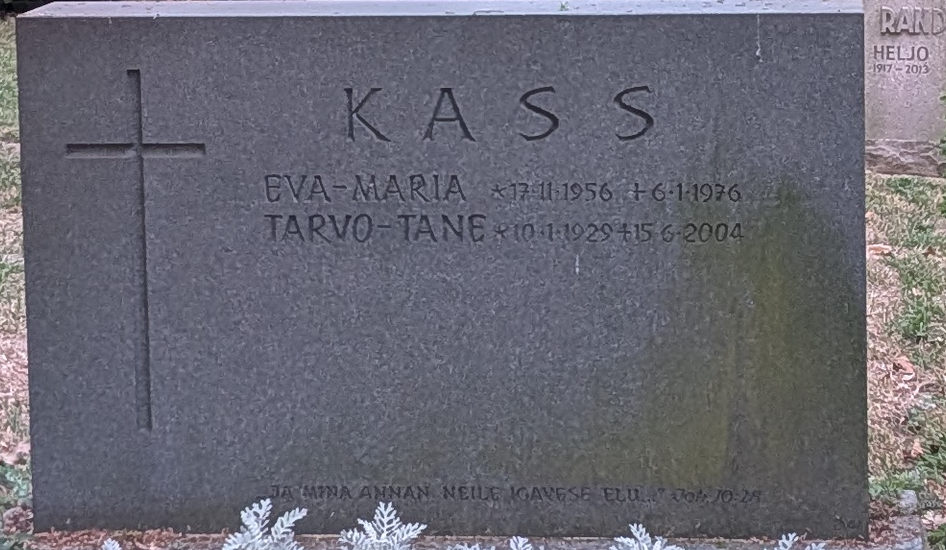
Font ID – Please.. Any ideas?
This is probably hand-cut.  Anything close?
Yes, I imagine this is hand-drawn, though it is possible that this is a font available in a European memorial design software, such as Comcut or ZSS (Ziese).